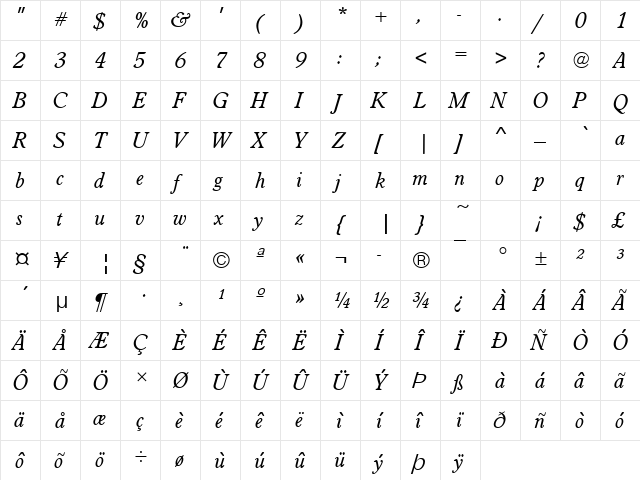
Worcester Round Becker Italic Font Preview
Design Context for Worcester Round Becker Typeface
Worcester Round Becker softens its letterforms with rounded terminals, giving it an approachable, friendly quality that works well in consumer-facing and digital contexts. The slanted form adds forward momentum and visual energy.
Well-suited to UI design, mobile interfaces, and any brand that wants approachability without sacrificing clarity.
Font Pairing: Pairs well with a rounded or humanist sans for body copy, maintaining the friendly tone without relying on Worcester Round Becker to carry extended reading.
Pro Tip: Use Worcester Round Becker for UI elements, app interfaces, and anywhere a friendly, approachable tone needs to be maintained without sacrificing clarity.